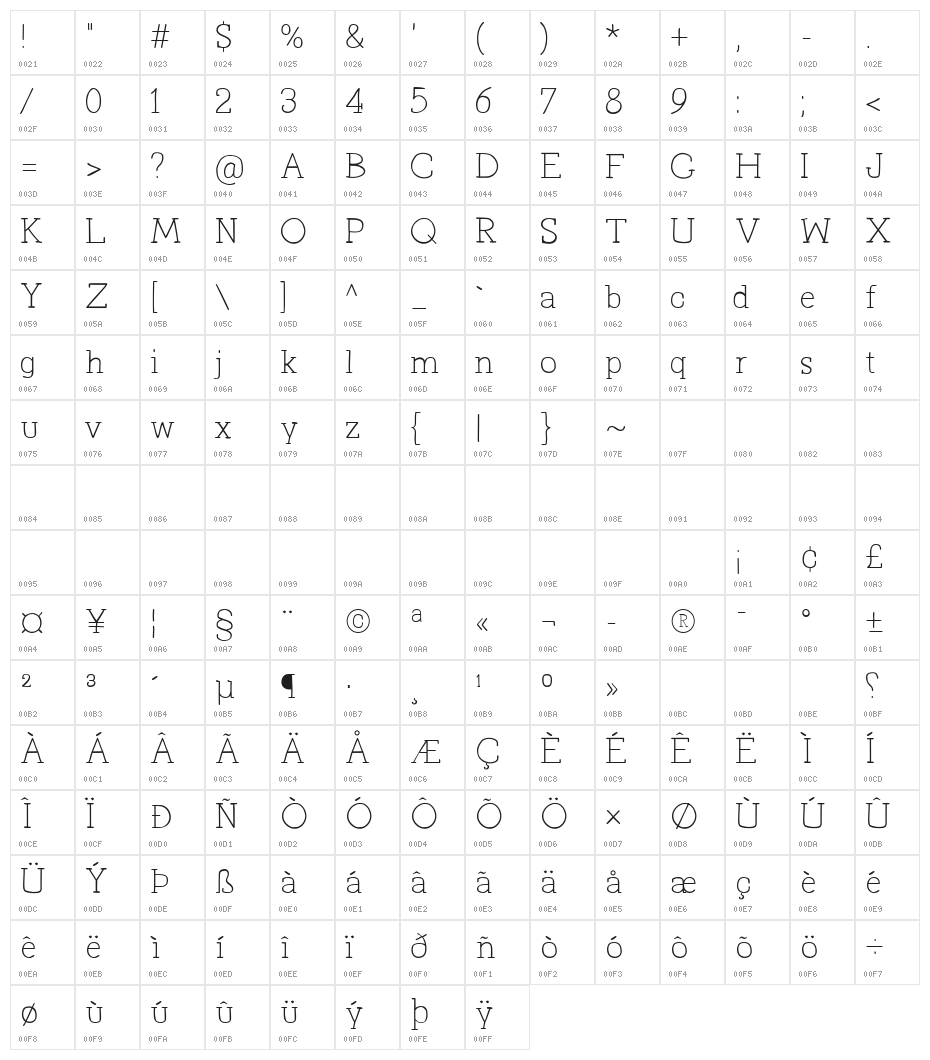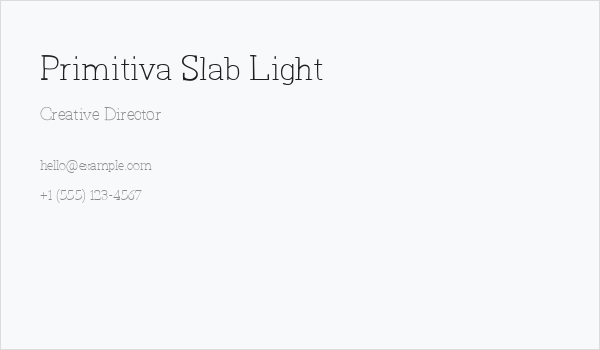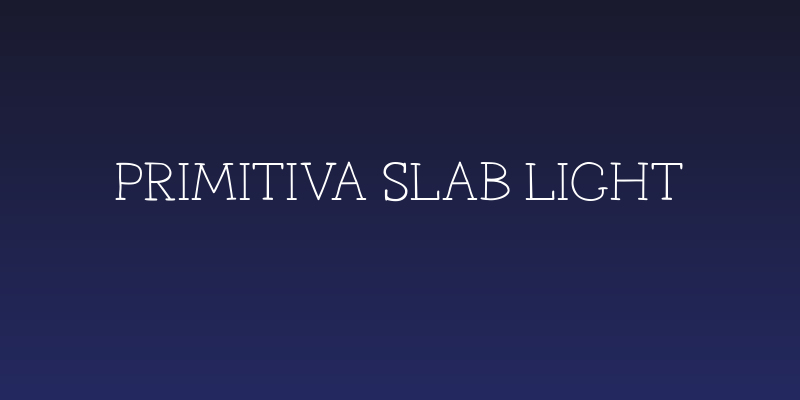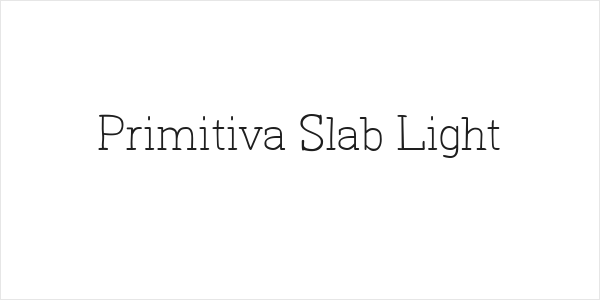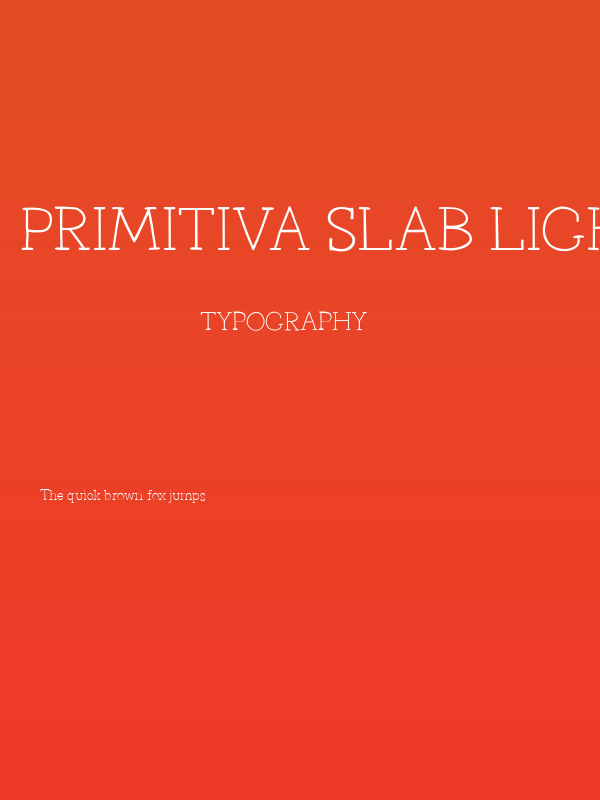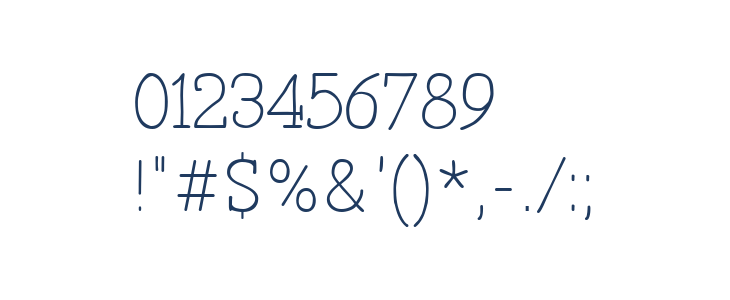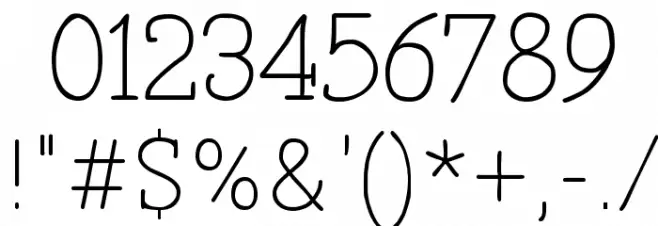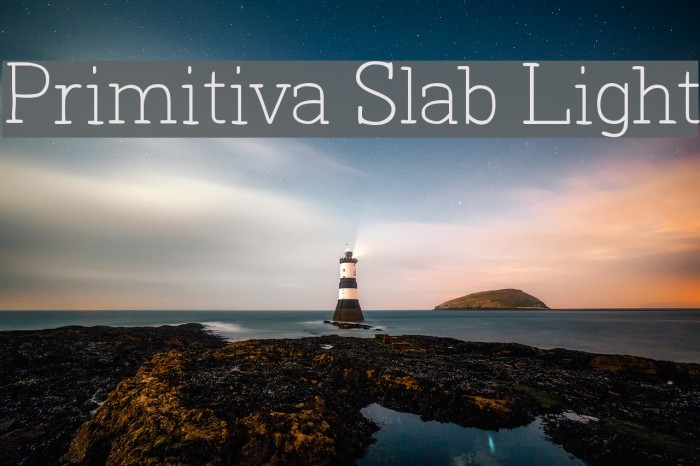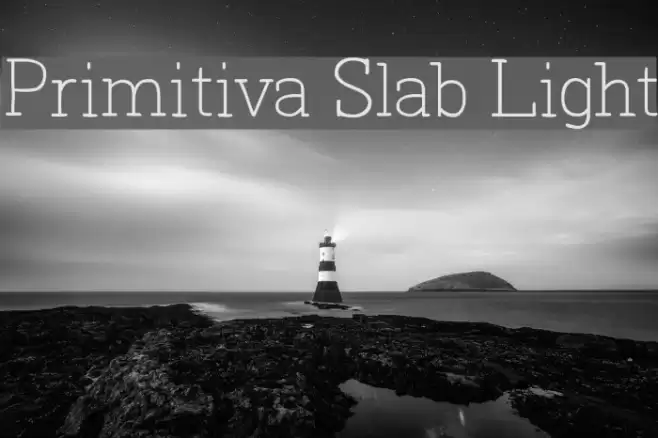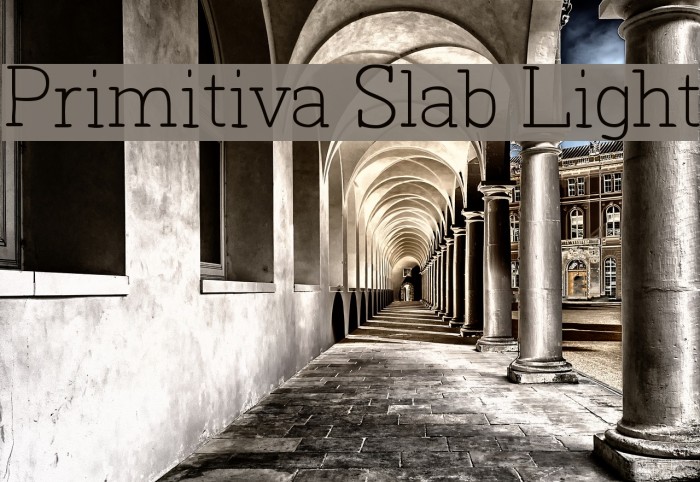
Primitiva Slab Light Font
Primitiva Slab Light Description
This font features a clean and modern slab serif design with thin, uniform strokes that give it a light and airy appearance. The characters are well-defined with a geometric structure, offering a balance between readability and style. The uppercase letters are slightly taller than the lowercase, providing a distinct hierarchy. The numerals are consistent with the overall design, maintaining the same thin stroke weight. Special characters are crafted with precision, ensuring they blend seamlessly with the alphabetic characters. This font's simplicity and elegance make it versatile for various applications.
| Proposed Projects | Ideal for editorial design, branding, and digital interfaces where a modern and clean aesthetic is desired. |